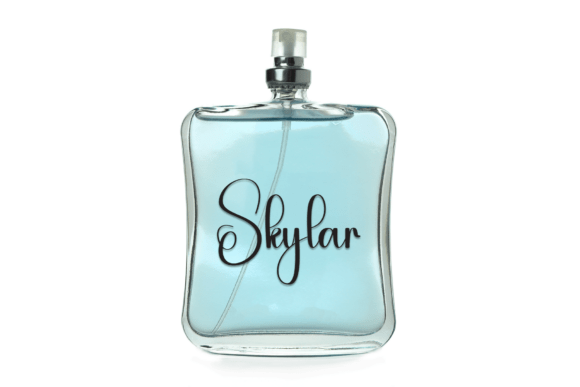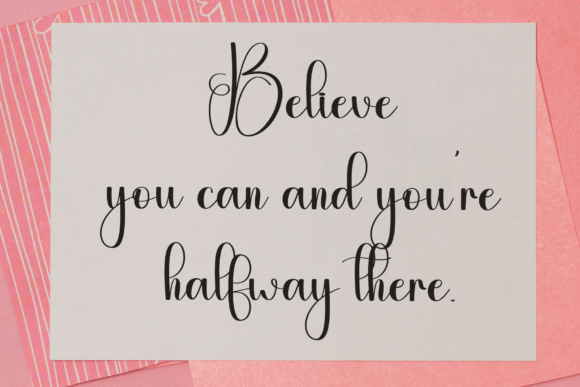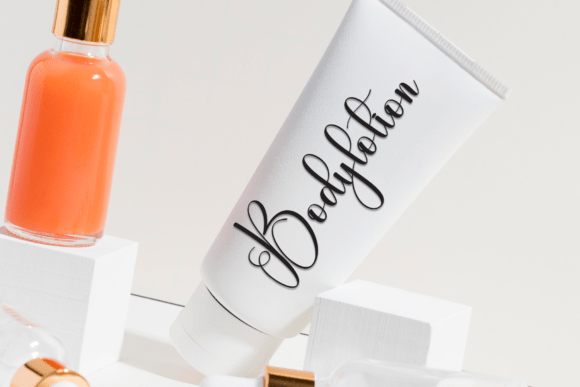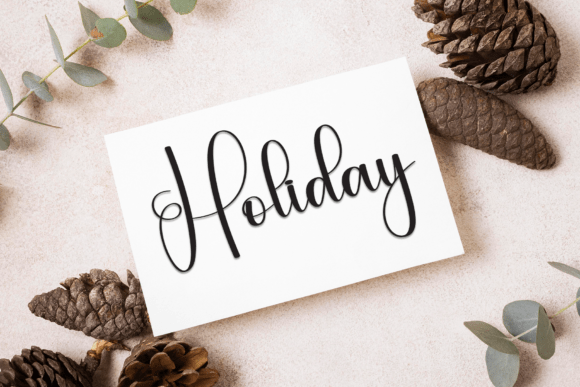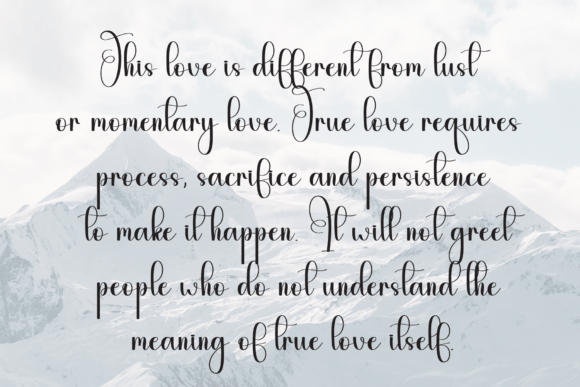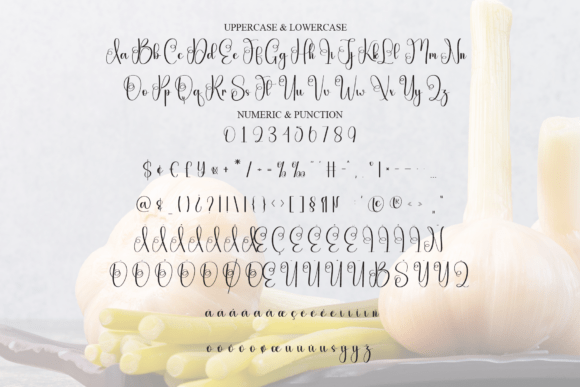
The Perfect Blend of Elegance and Whimsy: Unveiling the Garlic Amsterdam Font
Have you ever stared at a blank page, waiting for inspiration to strike? For designers, those moments can be the most thrilling – a spark of creativity that sets the entire project ablaze. For me, it was the discovery of a beautiful handwritten font that changed the game: the Garlic Amsterdam Font. This stunning script font brings a touch of sophistication and playfulness to any design, making it perfect for invitations, branding, and social media.
With its flowing curves and natural rhythm, the Garlic Amsterdam Font adds a personal, charming touch to any project. Whether you’re a seasoned designer or just starting out, this font is a valuable addition to your toolkit. Its elegance and creativity make it a standout choice for designers looking to elevate their work and leave a lasting impression.
Key Features of Garlic Amsterdam Font
- Unique Characteristics: The Garlic Amsterdam Font features a distinctive, elegant design with intricate details and a unique blend of modern and traditional elements.
Garlic Amsterdam Font Review
Overall, I’m quite impressed with the Garlic Amsterdam Font, but as with any font, it has its strengths and weaknesses.
- ✨ The font’s unique blend of modern and vintage elements creates a beautiful, eclectic feel that’s perfect for creative projects.
- ✨ The font’s legibility is excellent, making it easy to read even at small font sizes.
- ✨ The font’s versatility allows it to work well in a variety of contexts, from headlines to body text.
- ⚠️ The font’s bold and italic styles can feel a bit inconsistent, which may detract from its overall appearance.
- ⚠️ The font’s character set is not as extensive as some other fonts, which may limit its usability in certain contexts.
Despite its limitations, I think the Garlic Amsterdam Font is a great choice for designers looking for a unique and stylish font. With a little creativity and experimentation, you can work around its weaknesses and create some truly stunning designs.
The Garlic Amsterdam Font is ideal for use in creative and artistic projects, such as:
– Food blogs and recipes
– Travel and adventure publications
– Artistic posters and prints
For optimal use, keep the font size and color consistent throughout the design to create a cohesive look.
Alternatives to Garlic Amsterdam Font
Playfair Display is a high-end, elegant serif font suitable for luxury brands and high-end publications. It’s ideal for use in headings and titles where a touch of sophistication is needed.
Comparison to Garlic Amsterdam Font: While Garlic Amsterdam Font is also a serif font, Playfair Display is more ornate and luxurious, making it a better choice for high-end applications.
Lato is a modern sans-serif font that’s highly legible and versatile. It’s suitable for use in a wide range of applications, from body text to headings.
Comparison to Garlic Amsterdam Font: Lato is a more modern and minimalist font compared to Garlic Amsterdam Font, making it a better choice for applications where a clean and simple look is desired.